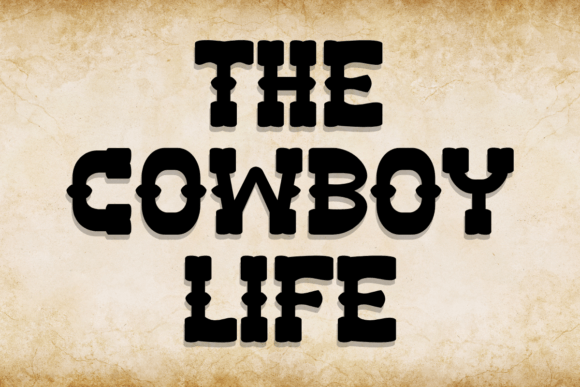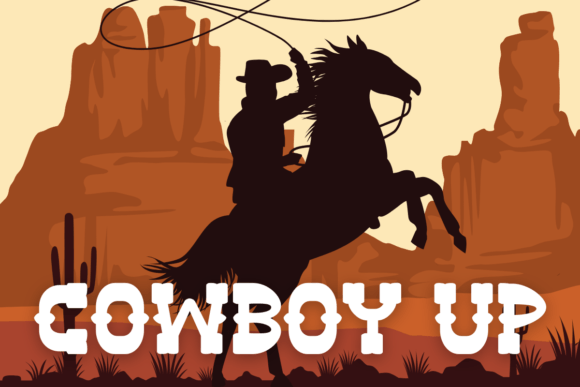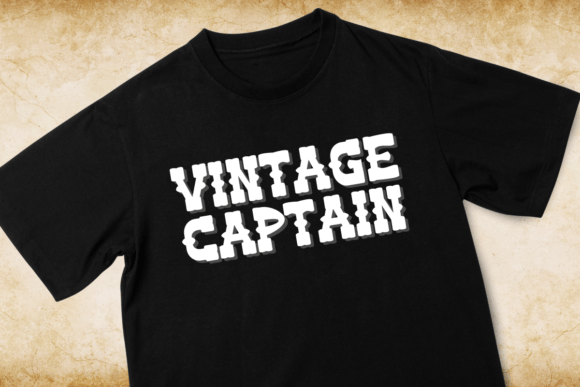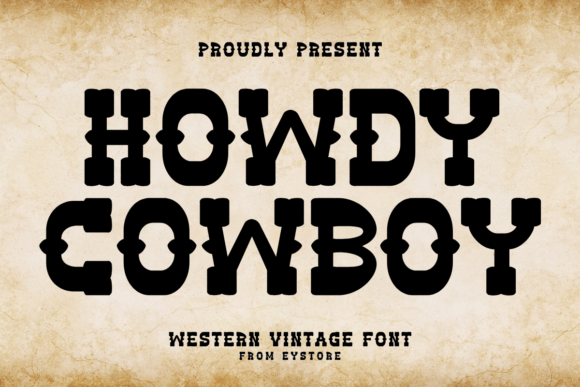
Introduction to Howdy Cowboy Font
Howdy Cowboy is a bold serif font that is vintage and unique.
The wide characters and bold serifs make this font ideal for eye-catching designs You can use it for headlines, t-shirt typography, banners, product labels, and much more.